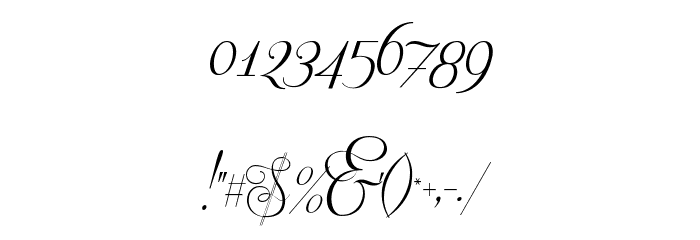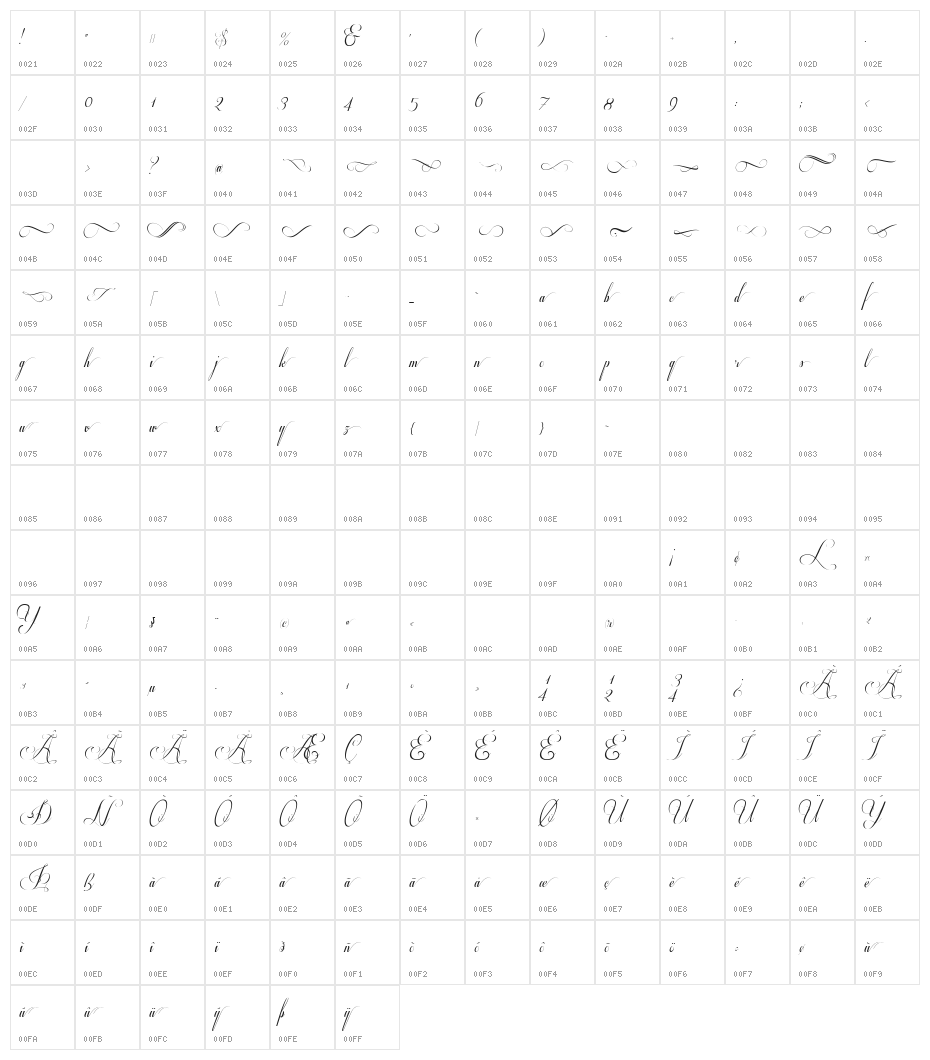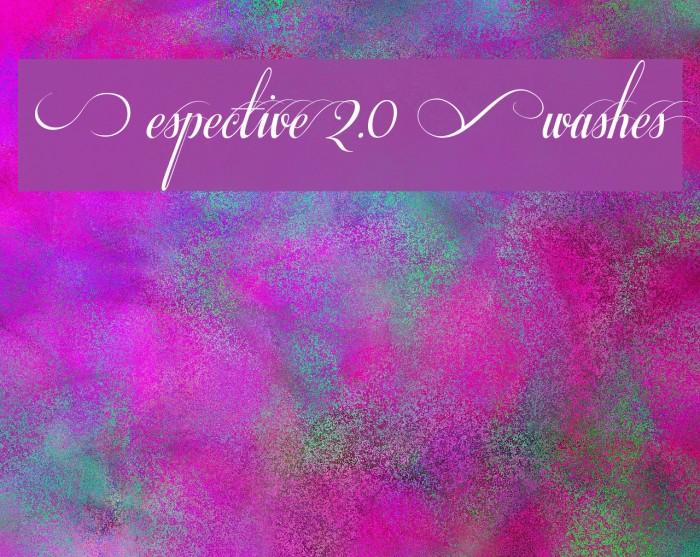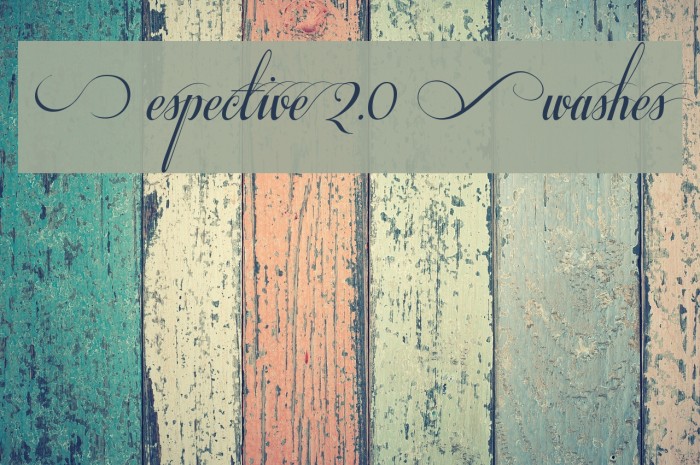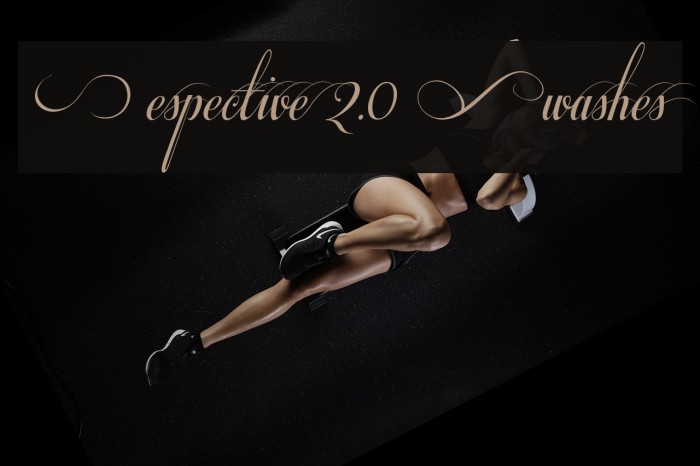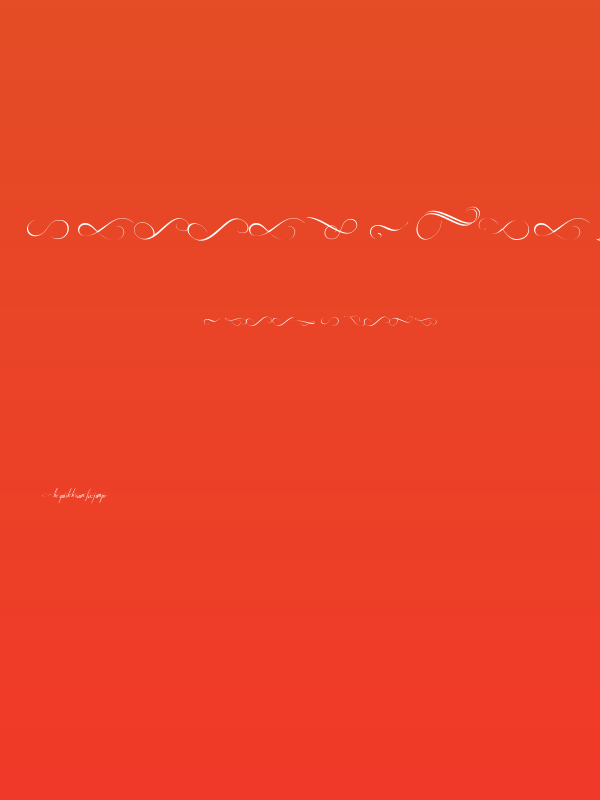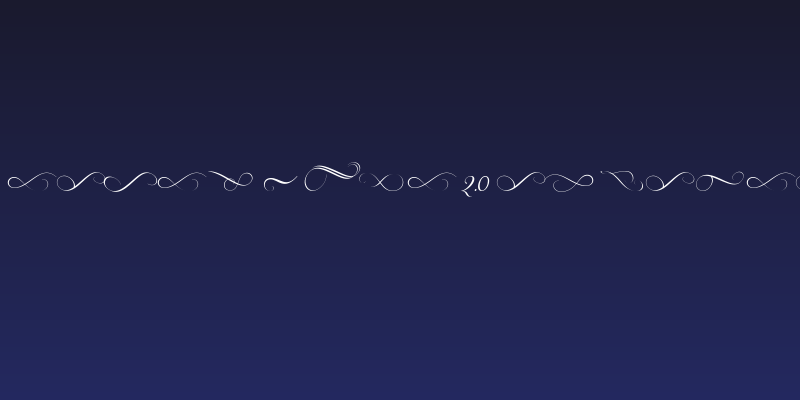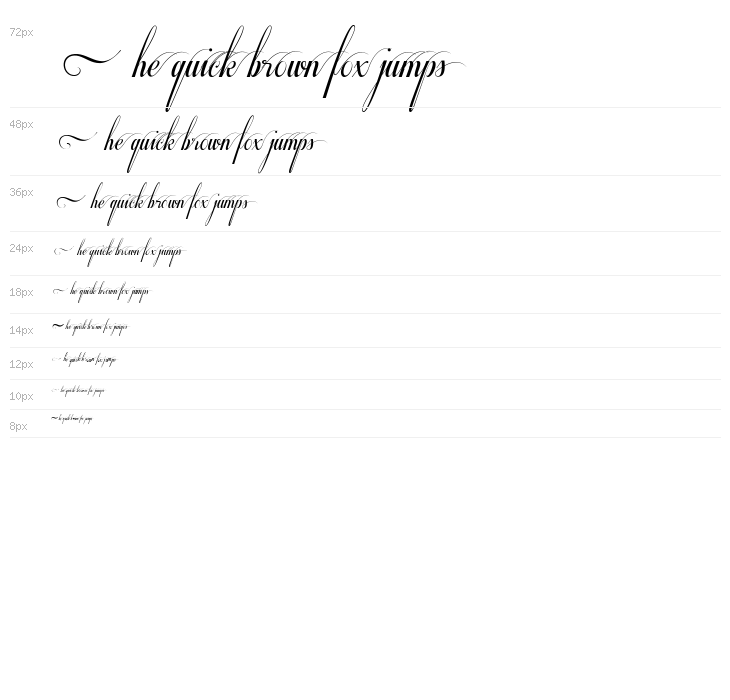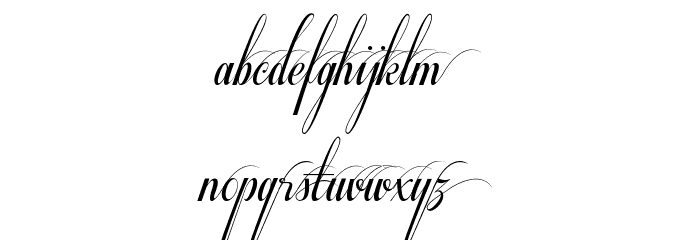
Respective 2.0 Swashes Font
Respective 2.0 Swashes Description
This font exudes elegance and sophistication with its flowing, cursive style. The characters are adorned with intricate swashes and flourishes, giving it a decorative and artistic appearance. The lowercase letters are particularly ornate, with extended ascenders and descenders that add to the font's graceful look. The numerals and special characters maintain the same level of detail, ensuring a cohesive design throughout. This font is ideal for projects that require a touch of luxury and refinement, such as wedding invitations, high-end branding, or artistic posters.
Use CaseLogos, Invitations, Artistic projects
Proposed ProjectsWedding invitations, luxury branding, artistic posters.